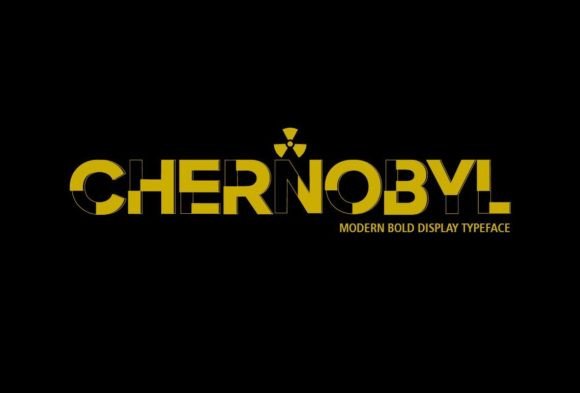
Step into a world of elegance and sophistication with Chernobyl Font, the ultimate display font that will captivate your audience. Its clean lines and beautiful letter arrangements will elevate your designs, whether you're crafting a captivating cover letter, a stunning poster, or an eye-catching social media post.
Crafted with precision and attention to detail, Chernobyl Font exudes a timeless charm that will leave a lasting impression. Its bold and versatile style effortlessly adapts to any project, adding a touch of sophistication to your creative endeavors. Whether you're a seasoned designer or just starting, this font is your secret weapon to create designs that stand out.
Experience the joy of effortless creativity as your words take on a life of their own, flowing seamlessly from one letter to the next, creating a visual masterpiece. Impeccably designed, Chernobyl Font ensures that every character is perfectly balanced and spaced, resulting in a harmonious and captivating aesthetic.
Unleash your imagination and let Chernobyl Font guide you to new heights of creativity. Its versatility knows no bounds, making it the perfect choice for a multitude of projects. From elegant logos to eye-catching headlines, from stylish invitations to heartfelt greeting cards, this font will transform your ideas into stunning realities.
Embrace the power of Chernobyl Font and watch as your designs come alive with a touch of magic. Its clean lines and bold strokes create a striking visual impact that will leave your audience spellbound. Prepare to be amazed as your words dance across the page, leaving an unforgettable impression that will resonate long after the final stroke is drawn.
Don't settle for ordinary when you can have extraordinary. Choose Chernobyl Font and unlock a world of creative possibilities. Let your imagination run wild as you create designs that captivate, inspire, and leave a lasting legacy. The world is your canvas, and Chernobyl Font is your brush. Paint your masterpiece today!